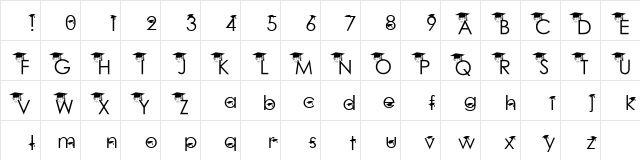
Baby Geniuses Regular
Design Context for Baby Geniuses Typeface
Baby Geniuses is a composed and adaptable typeface that performs quietly and consistently across a wide range of design contexts.